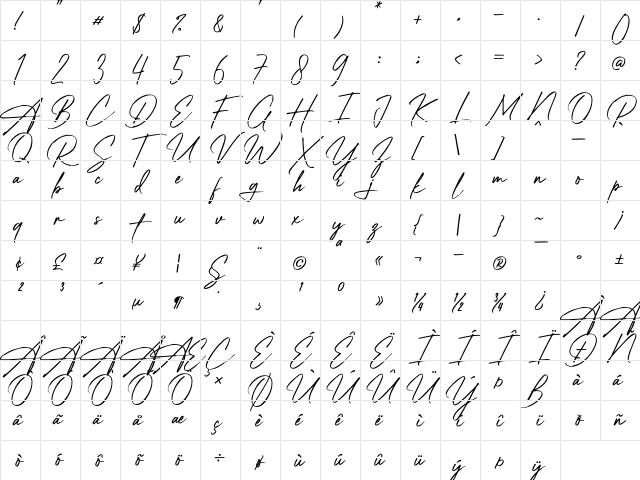
Alpha Brights Regular Free Font
Alpha Brights Regular
Design Context for Alpha Brights
Alpha Brights is a composed and adaptable typeface that performs quietly and consistently across a wide range of design contexts.